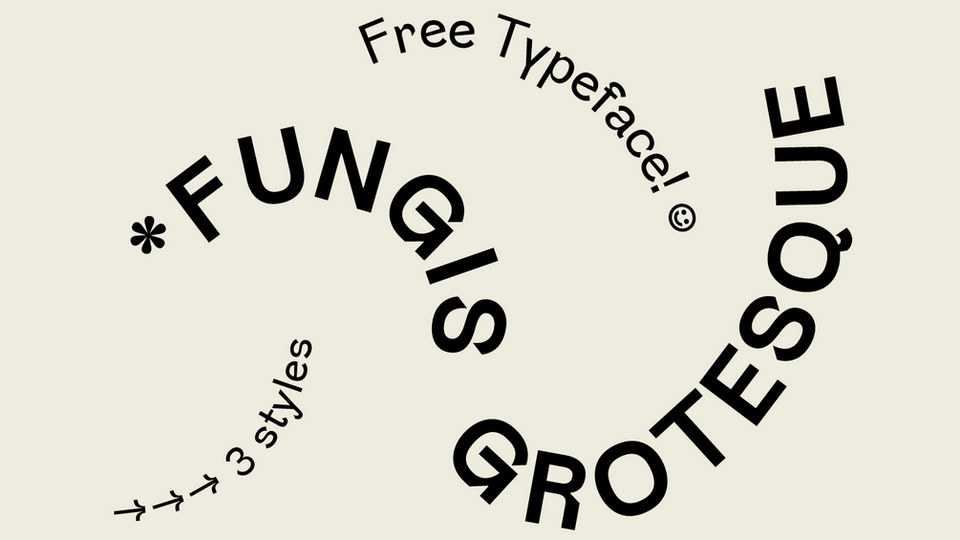
Download Fungis typeface, a sans serif font family with three styles made by combining the versatility of grotesque fonts with her curves and cut bowls in some of the letterforms. Fungis has neutral from a distance and a bit more nuanced up close.
Designer: Milena Leimig